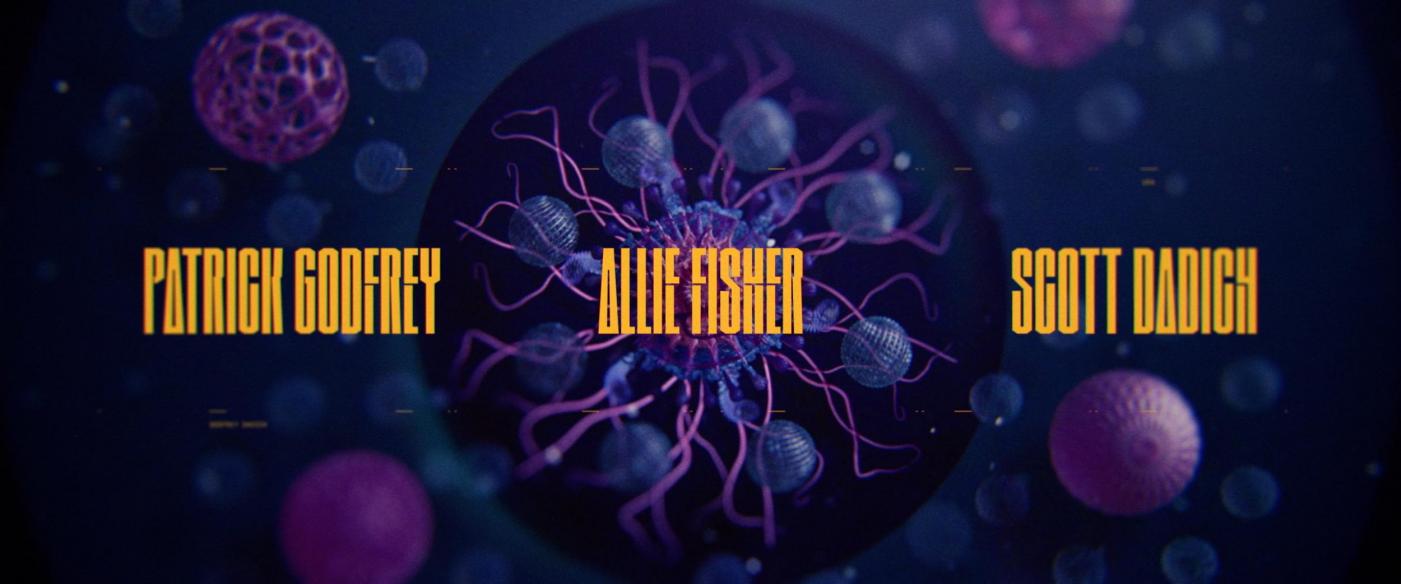
Similar titling font from Semi Permanent Titles 2018
I'm trying to find similar fonts to this beautifully designed titling font from this great opening film : https://vimeo.com/271663581